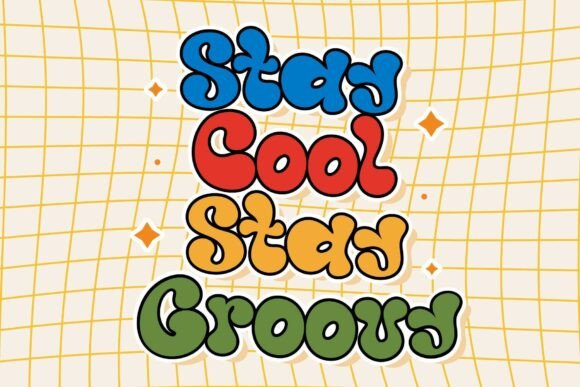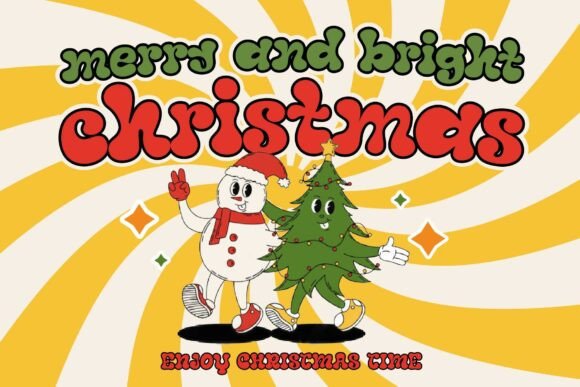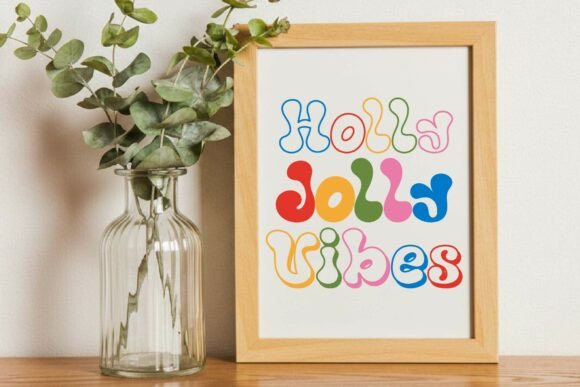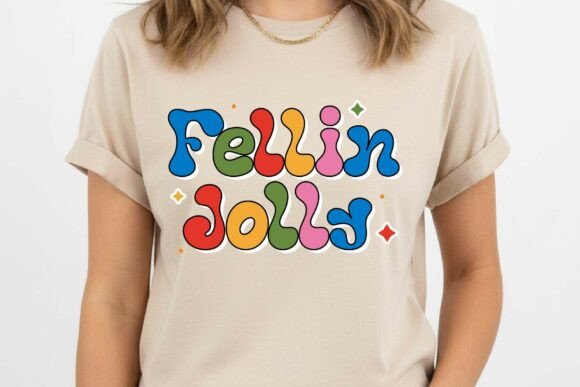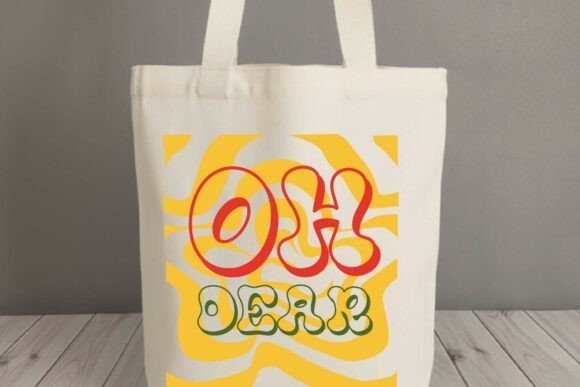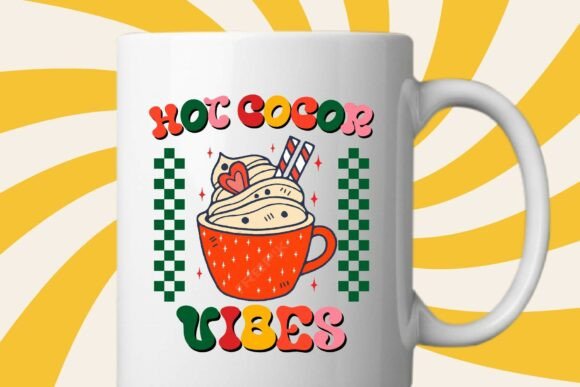
Introduction to Jolly Pop Font
Do you remember the excitement of creating colorful posters and flyers for school projects or events? The thrill of experimenting with vibrant colors and playful fonts, bringing your ideas to life? For designers, those moments of creative freedom are what make our job so rewarding. And now, we’re thrilled to introduce you to the perfect companion for those creative endeavors – the Jolly Pop Font.
As a dynamic and visually stimulating typeface, Jolly Pop Font draws its inspiration from the vivacious charm of retro bubble lettering. With its three unique styles, this design resource offers you the latitude to unleash your creativity and adaptability in all your projects. Whether you’re working on a high-quality design for a client or a personal creative project, Jolly Pop Font’s audacious shapes and jovial colors are sure to bring a friendly energy to your work.
Key Features of Jolly Pop Font
- Includes a wide range of characters and glyphs for comprehensive use
- Designed with a unique, playful aesthetic perfect for adding a touch of whimsy to your design
- Includes a large character set, including uppercase and lowercase letters, numbers, and punctuation
Honest Review: Jolly Pop Font
I recently had the chance to work with the Jolly Pop Font, a popular design resource for creative projects. Overall, I was quite impressed with the high quality and versatility of this font.
- ✨ Unique style: Jolly Pop Font has a distinct and playful personality that can add a touch of whimsy to any design project.
- ⚠️ Limited font weights: Jolly Pop Font only comes in a few font weights, which might limit its usability in certain design contexts.
- ⚠️ Not suitable for formal designs: The font’s playful nature might not be suitable for formal or professional designs where a more conservative tone is required.
Overall, I think Jolly Pop Font is a great design resource for creative projects that require a high level of playfulness and whimsy. With its transparent background and high quality design, it’s a great choice for designers who want to add a touch of personality to their work. Just be mindful of its limitations and use it accordingly.
Tips for Getting the Most Out of Jolly Pop Font
Use Jolly Pop Font to add a pop of color to your visuals, and experiment with different font sizes and colors to create a unique look.
Jolly Pop Font is perfect for creative projects such as social media graphics, blog posts, and advertisements. It’s also great for adding a playful touch to presentations and reports.
Alternatives to Jolly Pop Font
Pacifico is a high-quality, elegant script font that’s perfect for creative projects requiring a touch of sophistication. It features a transparent background, making it ideal for overlaying on images or backgrounds. With its beautiful, flowing lines, Pacifico is a great alternative to Jolly Pop Font for designers looking for a more refined look.
Compared to Jolly Pop Font, Pacifico is more subdued and sophisticated, making it suitable for projects that require a more professional tone.
Q: Is the Jolly Pop Font suitable for high-quality print projects?
Yes, the Jolly Pop Font is a high-quality design resource that is suitable for use in high-quality print projects. The font is designed to be crisp and clear at a wide range of font sizes, making it an excellent choice for projects that require precise typography. However, please note that the font’s quality may vary depending on the specific printing conditions and paper type used.